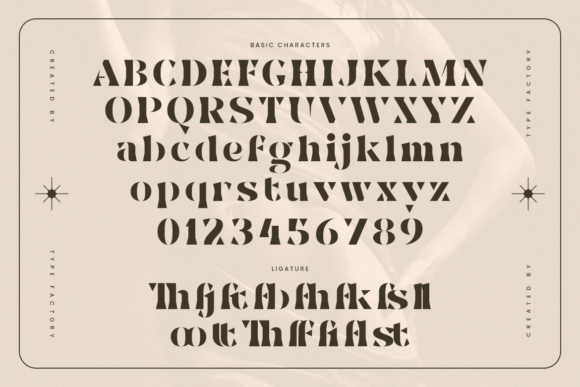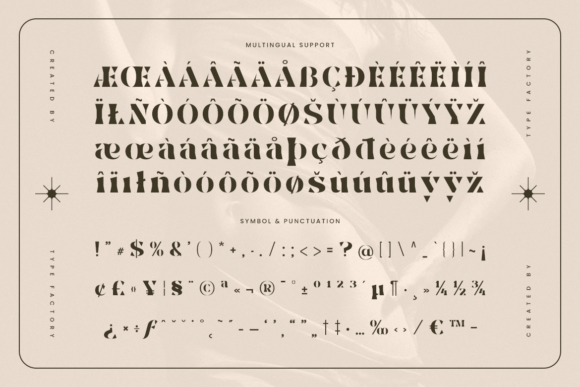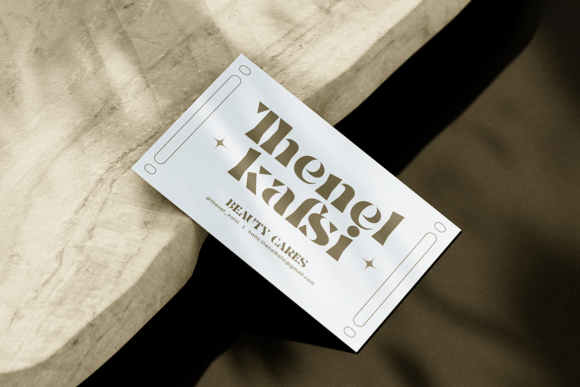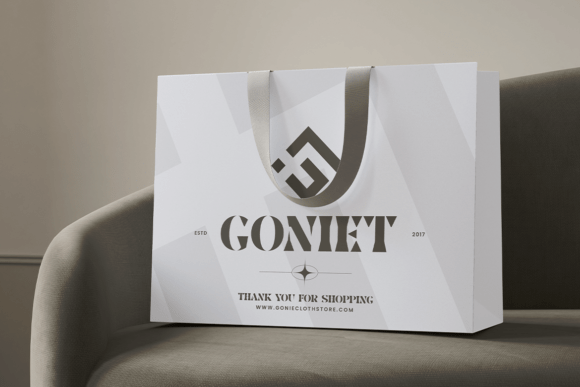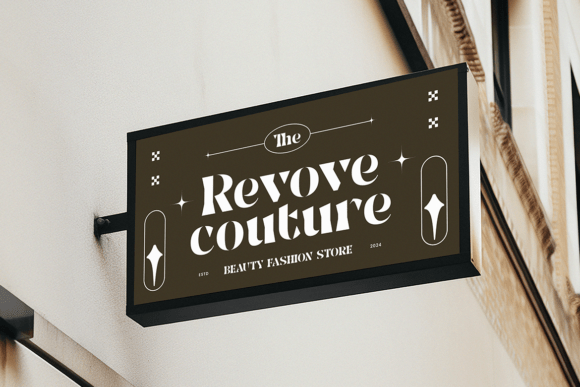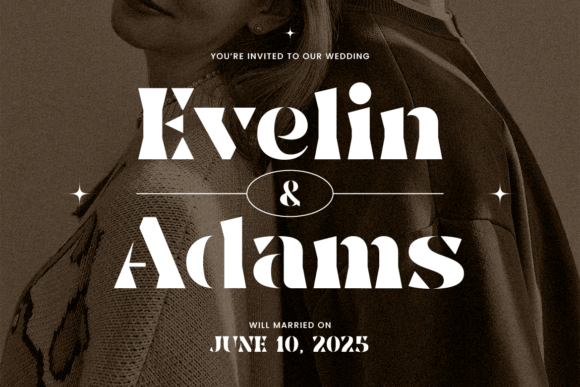
Introduction to Miffey Font
Miffey is a stencil serif typeface that combines classic serif structure with modern cut-out detailing.
Each character features distinctive stencil breaks and geometric slices, creating a bold and expressive display presence while maintaining readable letterforms Designed for impactful typography, Miffey works well in branding projects, editorial headlines, fashion campaigns, logo designs, packaging, posters, and social media visuals.